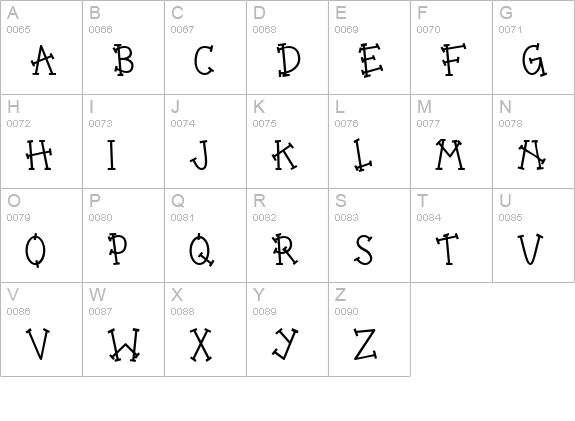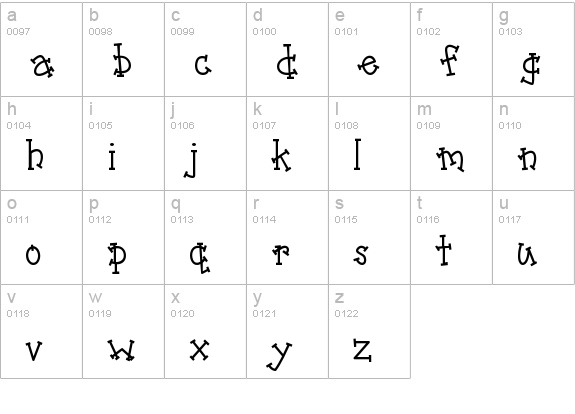
CK Quirky Font Details
Introducing CK Quirky font, a fun and playful typeface that adds a touch of whimsy to your designs. With its unique and quirky letterforms, this font is perfect for creating eye-catching headlines, posters, and other creative projects. The irregular shapes and exaggerated curves give CK Quirky font a charming and offbeat look that is sure to stand out. Best of all, CK Quirky font is available for free download at FontsMarket.com. Simply visit the website to get your hands on this delightful font and start incorporating its playful style into your designs today. Whether you're working on a personal project or a professional one, CK Quirky font is sure to add a touch of personality and charm to your work.